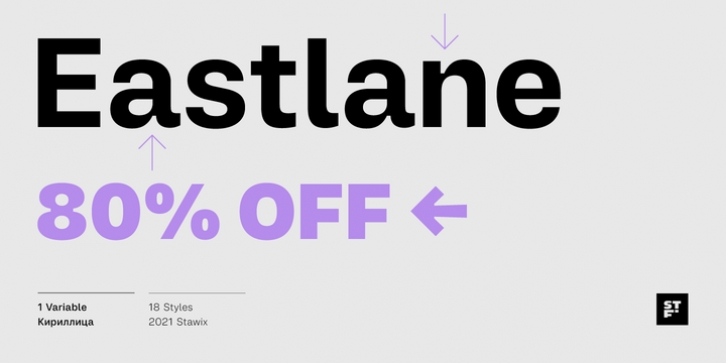
Meet Eastlane, the resilient yet robust typeface. A san-serif with a humanist touch, a steady combination of seriousness and merriment, Eastlane is like no other.Eastlane works well as texture in small sizes, while at the same time claim its space on the display. With its distinctive characteristic, Eastlane can catch anyone's attention whenever and whenever. Eastlane is the right font at the right place and certainly at the right time.Eastlane includes 18 styles and also comes with variable option.Stawix Ruecha